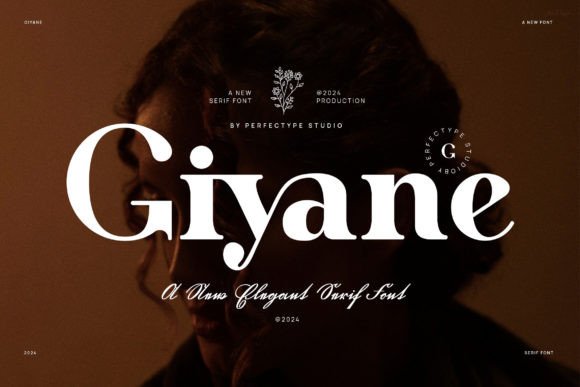
Giyane Font: Elevate Your Designs with Elegance and Sophistication
In the world of typography, fonts play a crucial role in conveying the tone and personality of a brand or design project. With the vast array of fonts available, it can be challenging to find the perfect one that embodies elegance, sophistication, and modernity. This is where Giyane Font comes in – a stunning serif font that seamlessly blends refinement with contemporary flair.
Giyane Font: A Modern, Stylish, and Elegant Serif Font
Giyane Font is a modern, stylish, and elegant serif font designed to add a touch of sophistication to any design project. Its clean lines, balanced proportions, and subtle details make it an ideal choice for a wide range of applications, from editorial layouts and branding to luxury packaging and invitations.
What sets Giyane Font apart is its unique ability to strike a balance between classic elegance and modern simplicity. The font’s serif design adds a touch of tradition, while its clean lines and minimalist aesthetic keep it feeling fresh and contemporary.
Key Design Features of Giyane Font
Giyane Font boasts several key design features that make it an exceptional choice for designers. Some of its notable features include:
- Clean Lines: Giyane Font features clean lines that give it a crisp, modern look. The font’s lines are carefully crafted to ensure that they are smooth and free of unnecessary embellishments, making it perfect for designs that require a touch of sophistication.
- Balanced Proportions: The font’s balanced proportions ensure that each letter is harmonious and visually appealing. This balance makes Giyane Font easy to read and perfect for body text, headlines, and titles.
- Subtle Details: Giyane Font includes subtle details that add depth and character to the font. These details are carefully designed to enhance the font’s elegance and sophistication without overpowering its clean lines and balanced proportions.
Use Cases for Giyane Font
Giyane Font is a versatile typeface that can be used in a wide range of design projects. Some of the most popular use cases for Giyane Font include:
- Editorial Layouts: Giyane Font is perfect for editorial layouts, such as magazines, newspapers, and books. Its clean lines and balanced proportions make it easy to read, while its elegant design adds a touch of sophistication to any publication.
- Branding: Giyane Font is an excellent choice for branding projects, such as logos, business cards, and letterheads. Its modern and stylish design makes it perfect for companies that want to convey a sense of elegance and sophistication.
- Luxury Packaging: Giyane Font is ideal for luxury packaging designs, such as high-end product labels and packaging materials. Its elegant design and subtle details add a touch of refinement to any luxury product.
- Invitations: Giyane Font is perfect for invitations, such as wedding invitations, birthday invitations, and other formal events. Its elegant design and sophisticated flair make it an excellent choice for any formal occasion.
Typography Tips for Using Giyane Font
To get the most out of Giyane Font, here are some typography tips to keep in mind:
- Pair with Other Fonts: Giyane Font pairs well with other fonts, such as sans-serif fonts and script fonts. Experiment with different font combinations to find the perfect pairing for your design project.
- Adjust Font Sizes: Adjusting font sizes can greatly impact the overall look and feel of your design. Experiment with different font sizes to find the perfect balance for your design project.
- Use Font Weights: Giyane Font comes in different font weights, which can be used to add emphasis and hierarchy to your design. Use font weights to create visual interest and guide the reader’s eye through your design.
Benefits of Using Giyane Font
Giyane Font offers several benefits to designers, including:
- Elegance and Sophistication: Giyane Font adds a touch of elegance and sophistication to any design project, making it perfect for designers who want to convey a sense of refinement and luxury.
- Versatility: Giyane Font is a versatile typeface that can be used in a wide range of design projects, from editorial layouts and branding to luxury packaging and invitations.
- Readability: Giyane Font is designed to be easy to read, making it perfect for body text, headlines, and titles.
In conclusion, Giyane Font is a modern, stylish, and elegant serif font that is perfect for designers who want to add a touch of sophistication to their design projects. Its clean lines, balanced proportions, and subtle details make it an excellent choice for a wide range of applications. With its versatility, readability, and elegance, Giyane Font is an excellent addition to any designer’s font library.